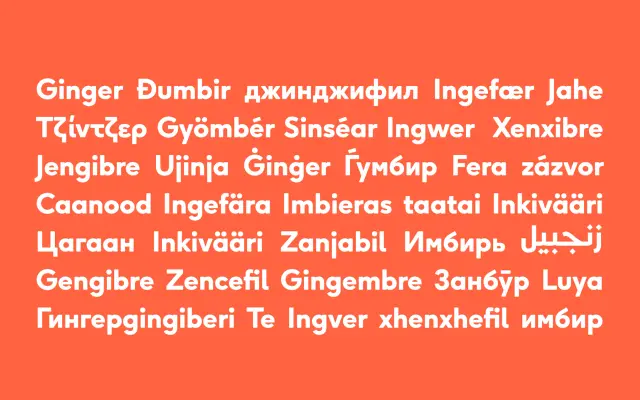
F37 Ginger Soft
F37 Foundry · Rick Banks, Shaqa Bovand, Ryan Williamson · 2013
The softest cut of F37 Ginger, easing the geometric counters into a friendlier voice for consumer and lifestyle brands.
A soft geometric sans by Rick Banks, Shaqa Bovand and Ryan Williamson, the softest variant in the F37 Ginger system. Twelve styles cover six weights from Thin to Black with matching italics, keeping the near-circular counters and Futura plus Avant Garde Gothic lineage but softening corners further than the Rounded cut. Sits in consumer, wellness, kids and lifestyle work that wants the geometry of Ginger with even less edge, and connects to the wider Latin Extended, Cyrillic, Greek and Arabic Ginger system.
F37 classifies Ginger Soft as the softest cut of the F37 Ginger system, holding the geometric shapes and near-circular counters but softening corners further than the Rounded variant. Sits within a wider family that supports 252+ languages across Latin Extended, Cyrillic, Greek and Arabic.